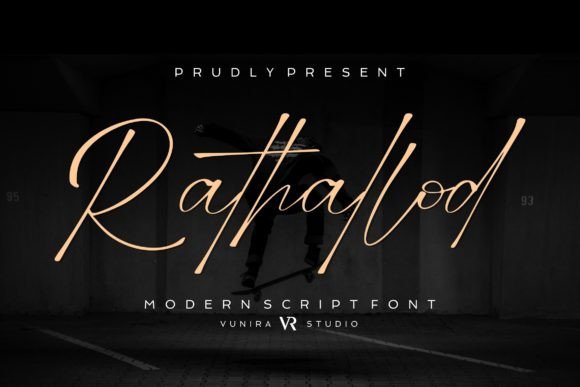
Rathallod Font: The Perfect Font for Making a Lasting Impression
In a world saturated with visual noise, it's more important than ever to stand out. Whether you're crafting a captivating logo, designing an eye-catching poster, or showcasing your creativity in a personal project, Rathallod Font is the key to making a lasting impression.
With its modern, elegant, and stylish script, Rathallod Font exudes sophistication and grace. Its smooth, flowing curves and delicate hairlines dance across the page, creating a visually stunning masterpiece that commands attention. The slanted letters and generous spacing add a touch of luxury and sophistication, making Rathallod Font the perfect choice for formal events, romantic occasions, and any project that demands a timeless, elegant look.
But what truly sets Rathallod Font apart is its incredible versatility. Whether you're designing a wedding invitation, a marketing brochure, or a social media post, Rathallod Font seamlessly adapts to your creative vision. Its versatility knows no bounds, making it the perfect choice for designers of all levels. Rathallod is a Blessing to billboard Designers. The captivating nature of Rathallod fonts helps billboard designers achieve their desired results and stay ahead of the competition.
Crafted by the talented Vunira, Rathallod Font is a masterpiece of digital calligraphy. Its PUA encoding ensures effortless access to all of its delightful glyphs and swashes, giving you the creative freedom to explore endless possibilities. Unleash your imagination and create designs that leave a lasting impact.